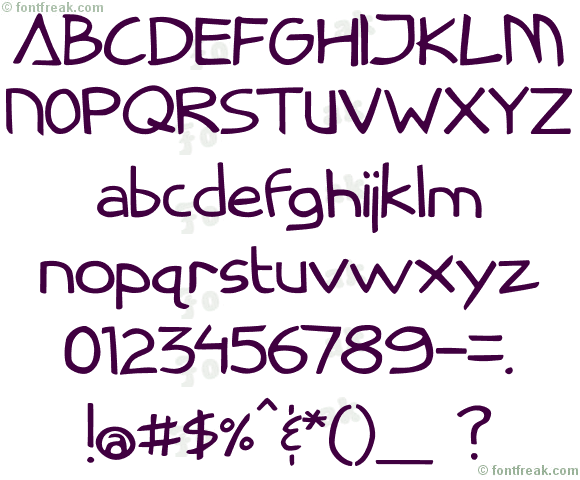
Cassini
Cassini, designed by Kelvin Ma, is a captivating display font that stands out with its unique blend of modern aesthetics and playful charm. This font falls into the category of decorative typefaces, making it an excellent choice for projects that require a touch of creativity and personality. Its round, soft strokes give it a friendly appearance, while the slightly varied stroke weight adds a dynamic feel. The spacing is well-balanced, ensuring legibility even at larger sizes, which enhances its usability across various mediums.
The Cassini font is ideal for a range of applications. It shines in wedding invitations, where its whimsical character can convey joy and celebration. For movie posters, the font's distinctive style can capture attention and intrigue potential viewers. Restaurant menus can benefit from Cassini's inviting look, appealing to diners and enhancing the overall dining experience. Additionally, this font works well in branding projects for small businesses, providing a memorable identity that stands out in a crowded market.
In conclusion, the Cassini font free download represents a perfect fusion of creativity and functionality, making it a valuable asset for any designer's toolkit. Its distinctive visual style and adaptability to various contexts set it apart from other decorative fonts, ensuring that your projects will be both engaging and memorable. Embrace the charm of Cassini and elevate your designs to new heights.